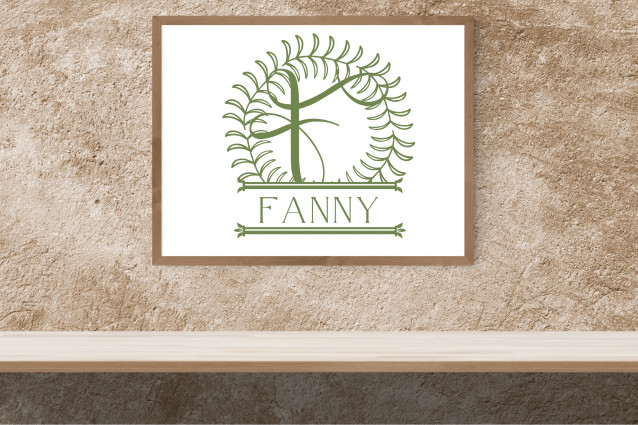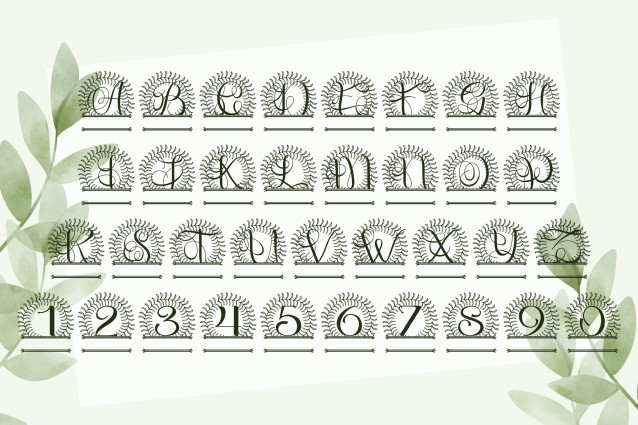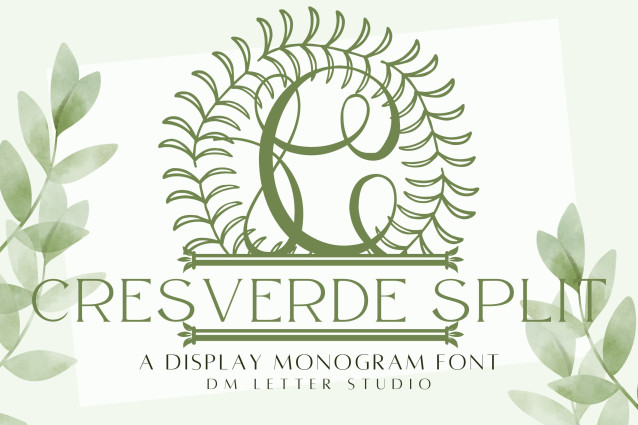
Cresverde Split Monogram Font
Cresverde Split Monogram Font is an elegant serif monogram font with a refined split layout and graceful botanical flourishes. Each uppercase letter features a centered gap designed for personalization—perfect for names, dates, or short messages. Ideal for wedding stationery, branding, packaging, and gift designs, this font adds timeless structure with a soft, organic twist.